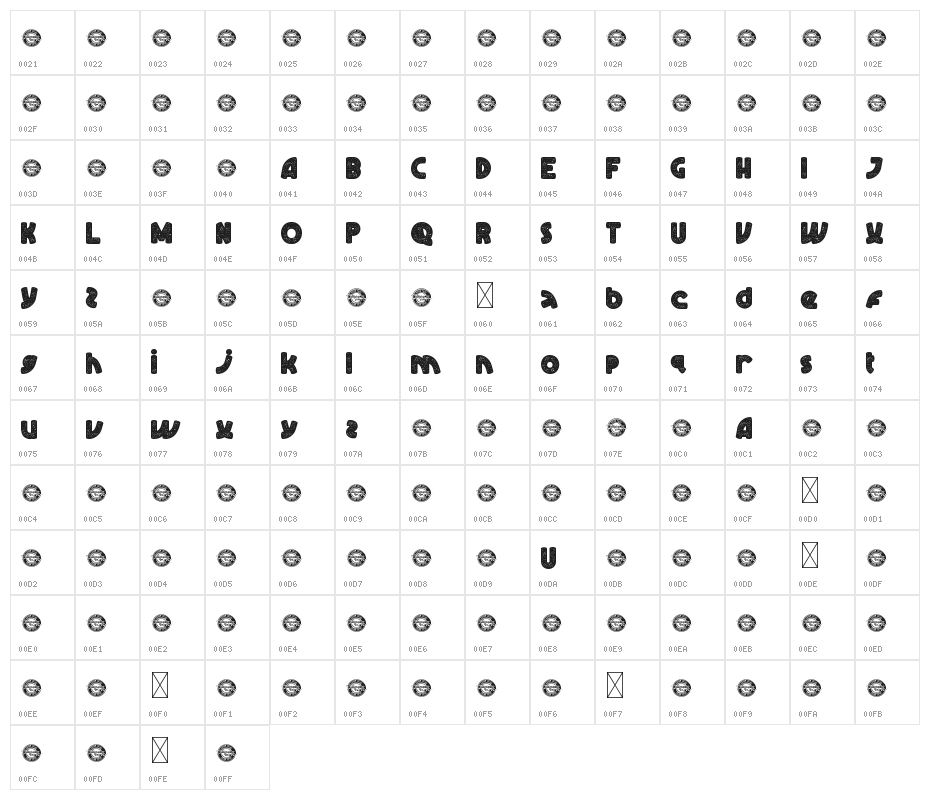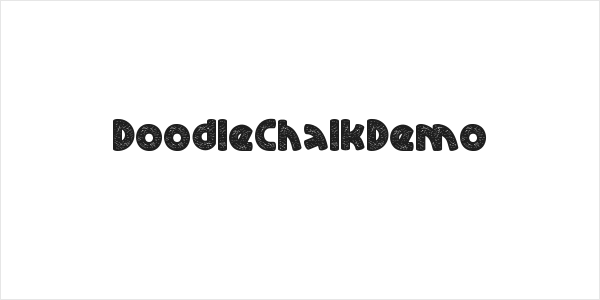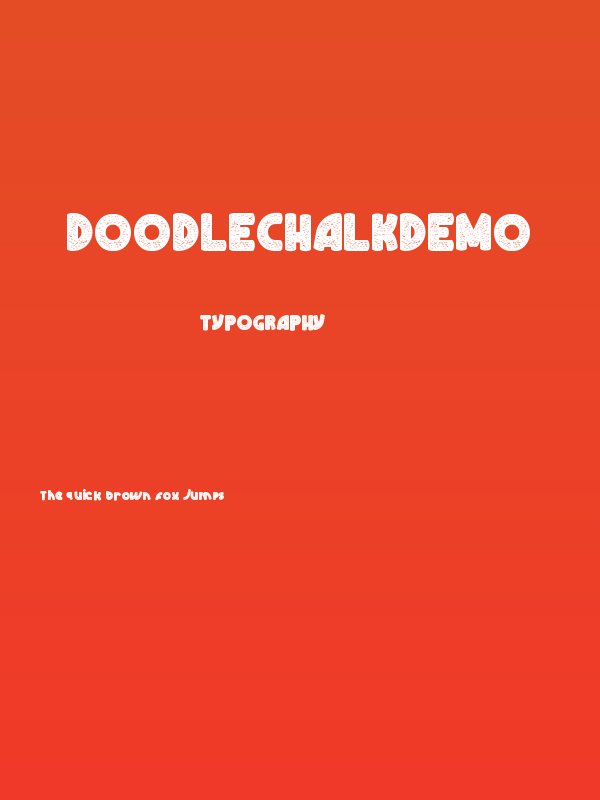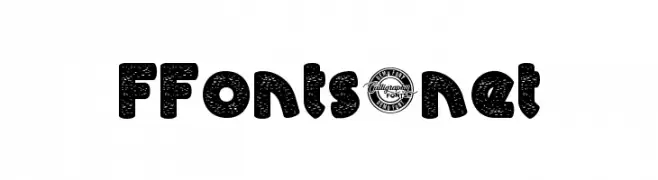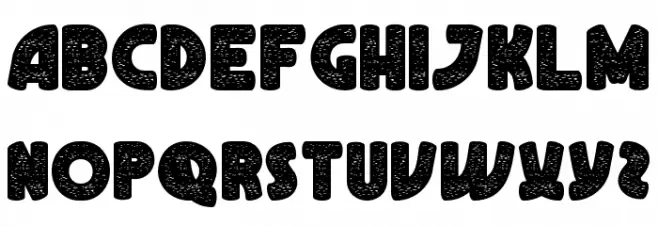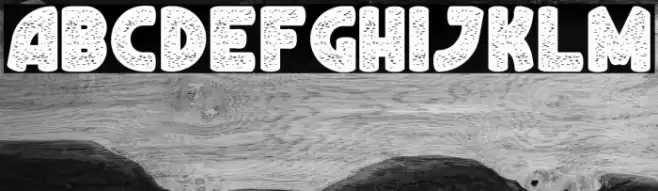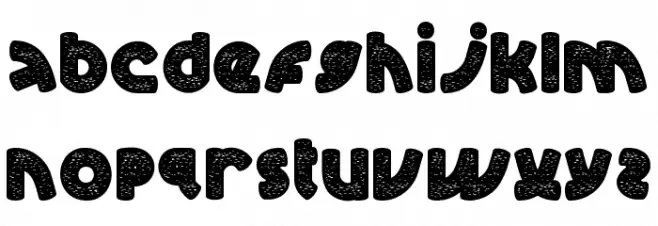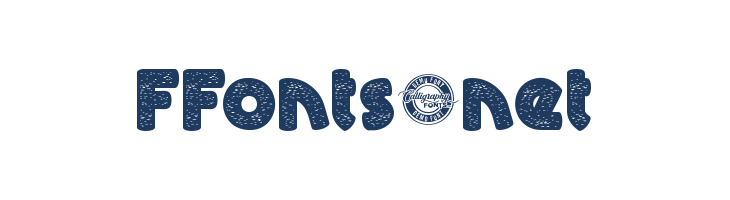
DoodleChalkDemo Font
DoodleChalkDemo Description
A bold, textured, rounded display font with a playful and chunky appearance, featuring a speckled pattern within the characters.
| Overall Style | Playful, Bold, Textured |
| Use Case | Headlines, Logos, Posters, Packaging |